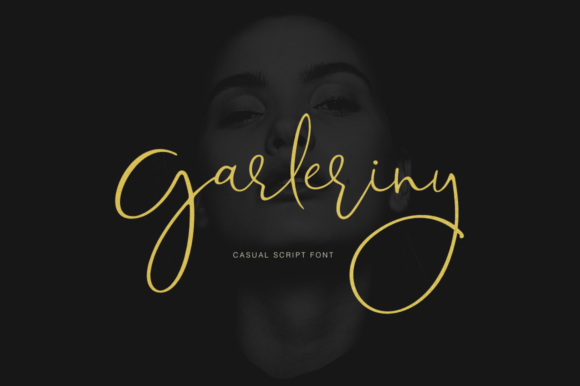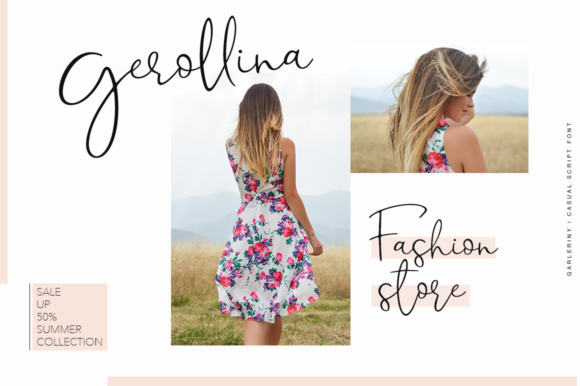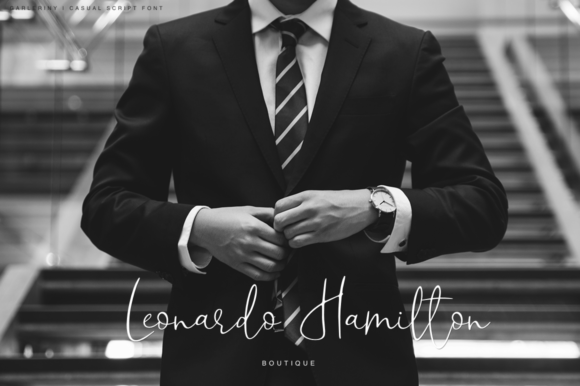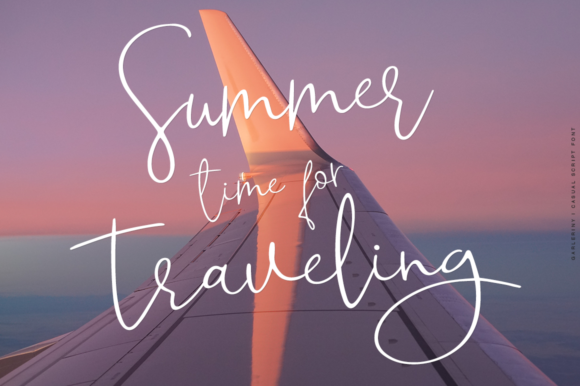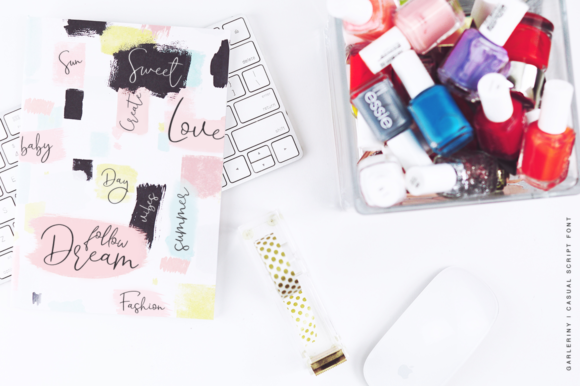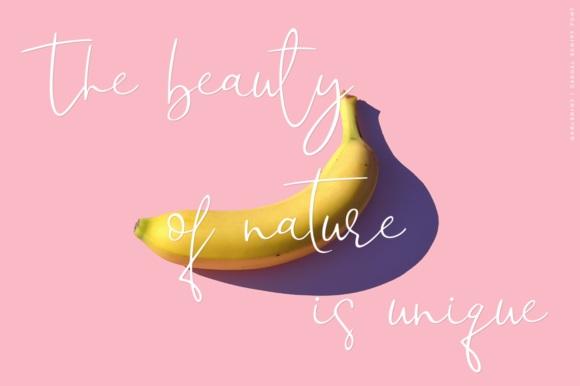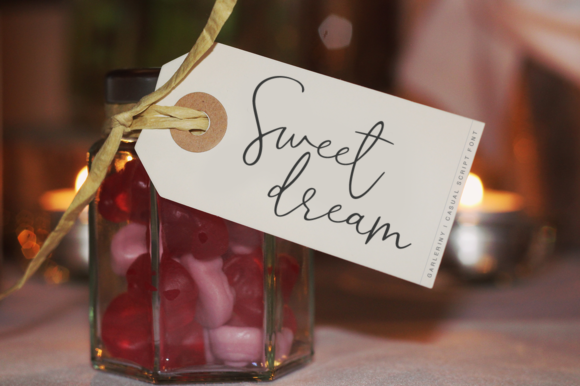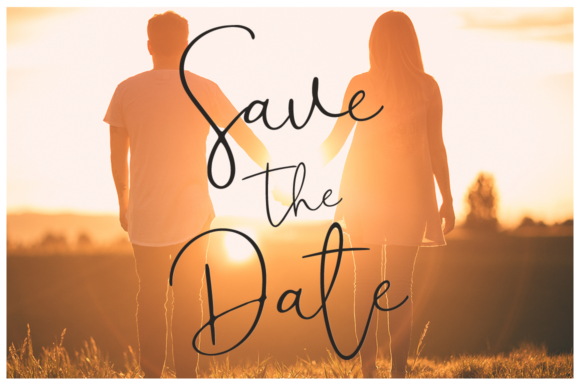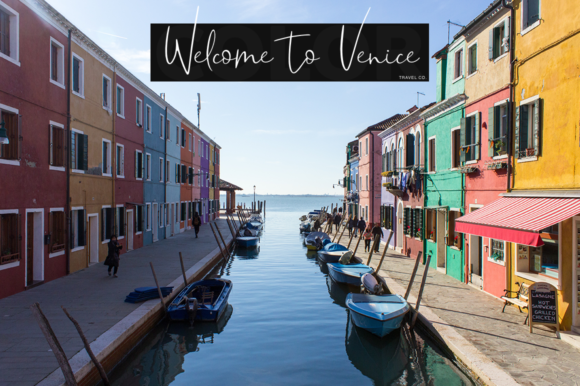
Garleriny Font
About Garleriny Font
Garleriny script- a new fresh handmade calligraphy font.
This font is ideal for branding and decorate your any project, are perfect for wedding invitation or your blog. Also with their help, you can create a logo or beautiful frame for your home. Or just use for your small business, book covers, stationery, marketing, magazines and more.